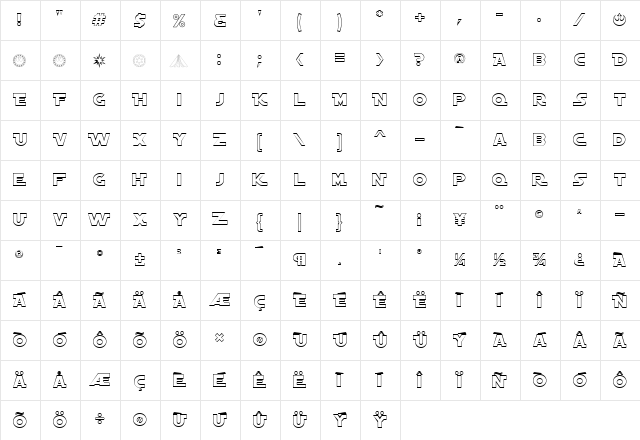
AstroAlternateOutline Regular
Design Context for AstroAlternateOutline Typeface
AstroAlternateOutline brings ornamental detail and strong personality to headlines and identities, where visual impact matters more than quiet functionality.
Font Pairing: Pair with a clean neutral sans-serif for body copy to let AstroAlternateOutline's character lead without overwhelming the composition.
Pro Tip: Use AstroAlternateOutline exclusively at display sizes — it was designed to be seen, not read at length. Let a neutral companion handle body copy.